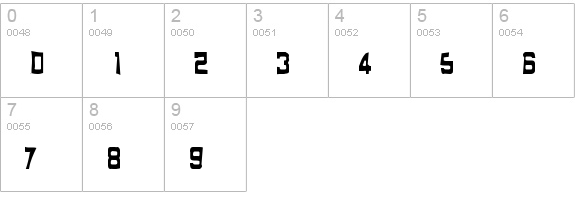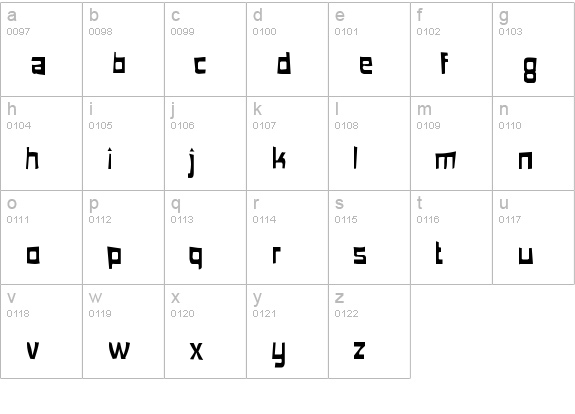
Anglepoise Lampshade Gaunt Font Details
The Anglepoise Lampshade Gaunt font is a sleek and modern typeface that exudes elegance and sophistication. Its clean lines and stylish curves make it a versatile choice for a wide range of design projects, from branding and packaging to digital and print media. This font is perfect for adding a touch of refinement to your creations, whether you're designing a logo, creating a website, or crafting a social media post. Its unique design sets it apart from other fonts, making it a standout choice for those looking to make a statement. Best of all, the Anglepoise Lampshade Gaunt font is completely free to download at FontsMarket.com. So why wait? Add this stunning font to your collection today and elevate your designs to new heights of style and sophistication.